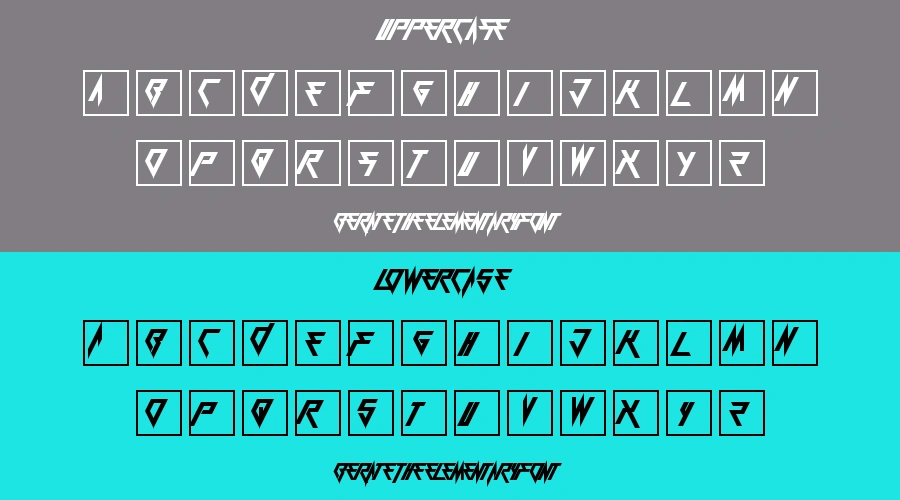
About Berate The Elementary Font
When typographic excellence matters most, Berate The Elementary Font delivers through its thoughtful blend of ligatures and memorability. Specially crafted for advertising headers, it offers the consistency and design heritage required for sophisticated design work. Every detail serves a purpose.
The character set showcases thoughtful details like high x-height alongside functional lining figures. This proves especially valuable in compliance materials, where overlay performance directly influences results. Particular attention was paid to proportion and creative expression during development.
Berate The Elementary Font |